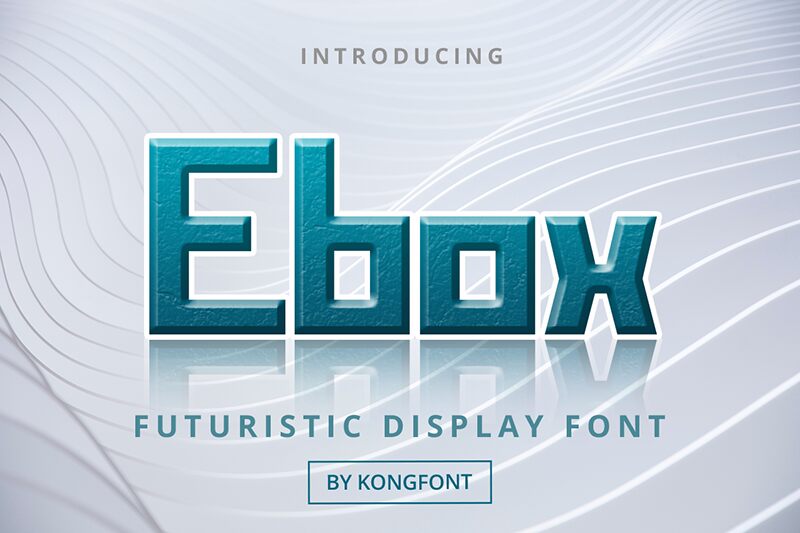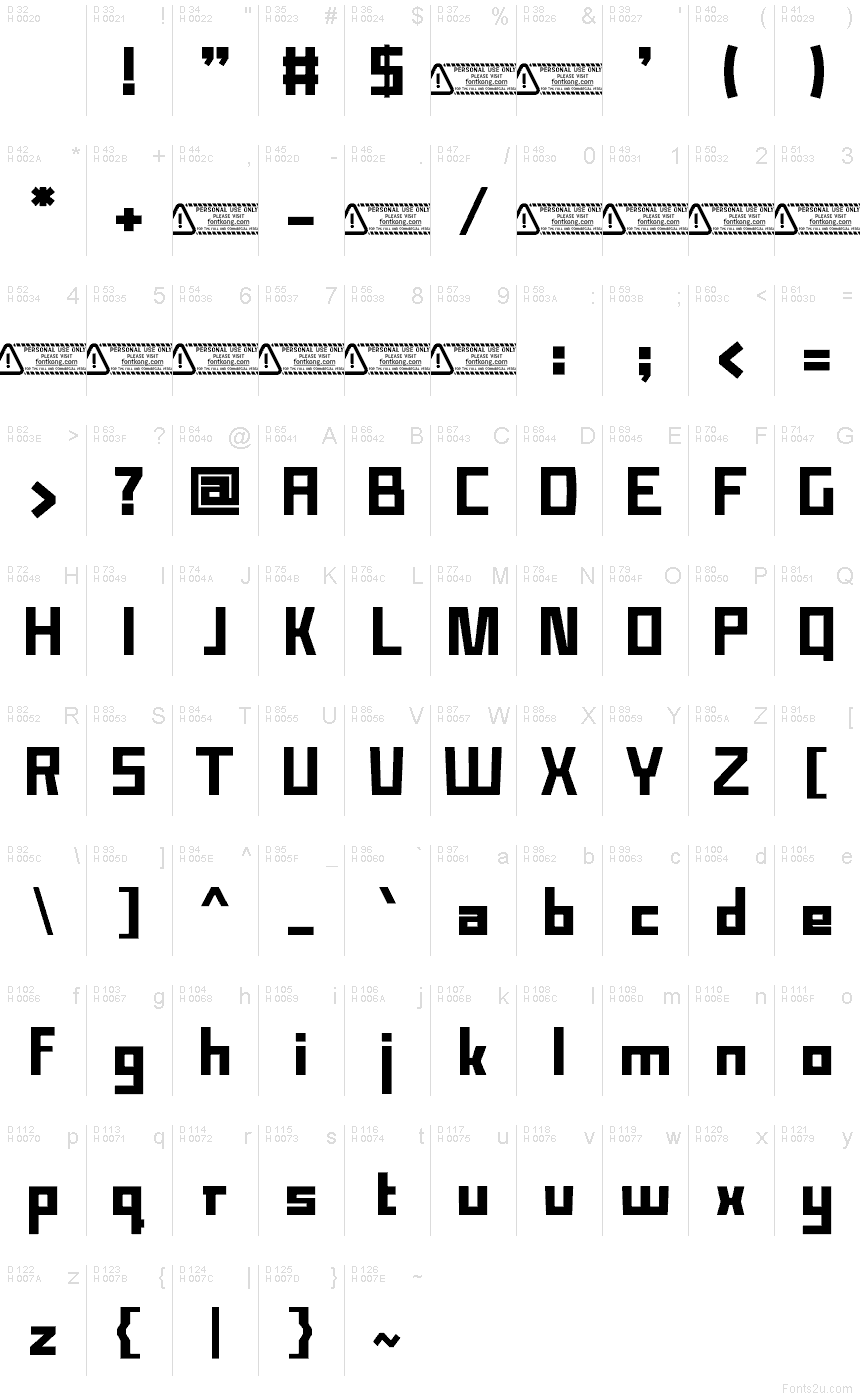
Ebox font by Kong Font is a free techno display typeface that gives you a bold, futuristic voice without sacrificing clarity. Its chunky, squared forms and clean, straight edges feel like they’re cut from solid metal, while the tight geometry keeps every word locked into a strong, unified block. The result is a heavy, mechanical rhythm that still reads fast at a glance.
Using Ebox, headlines snap into place for gaming logos, sci-fi posters, esports branding, tech event graphics, bold app splash screens, and YouTube thumbnails. This free font thrives at large sizes where its square counters and dense structure can really punch through busy visuals. Pair Ebox with a light, neutral sans serif for body text to soften the edges while keeping the overall look sharply modern.